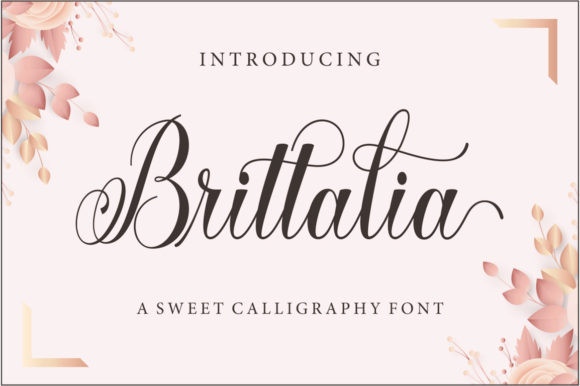
Brittalia Font
Brittalia Font is perfect for elegant wedding invitations, sophisticated branding projects, luxury fashion magazines, premium lifestyle campaigns, refined restaurant menus, upscale boutique signage, graceful stationery design, exclusive event materials, and high-end editorial layouts.
What makes Brittalia Font exciting is its captivating blend of British sophistication with Italian elegance that creates a uniquely refined and cosmopolitan character. The font features graceful letterforms with distinctive European flair that embodies the best of classic typography traditions while maintaining contemporary appeal. Its carefully crafted details and harmonious proportions make it perfect for brands that want to communicate international sophistication, cultural refinement, and timeless elegance while appealing to discerning audiences who appreciate the intersection of British heritage and Italian style.
Brittalia Font family includes various elegant weights such as Light, Regular, Medium, and Bold variations, often featuring stylish italics and European-inspired alternates. The family may include sophisticated ligatures, continental ornamental elements, and refined decorative features that enhance the font's cosmopolitan aesthetic, providing designers with comprehensive options for creating distinguished typographic compositions that reflect international luxury and cultural sophistication.
This cosmopolitan typeface has gained popularity among luxury brands and international organizations seeking refined European typography solutions. Brittalia Font Free Download provides an excellent opportunity to experience this sophisticated font before investment. The font's character set includes elegant symbols and refined glyphs that work perfectly for luxury lifestyle and international business applications. Whether you're designing for luxury travel brands, international fashion houses, or premium hospitality services, Brittalia Font delivers the European sophistication your project requires. Its versatile nature makes it suitable for various upscale applications including cultural institutions, luxury hotels, fine dining establishments, and premium lifestyle brands, ensuring your typography choices communicate worldly refinement and cultural awareness while creating memorable brand experiences that resonate with internationally-minded audiences who appreciate the timeless appeal of European elegance and the sophisticated lifestyle that defines contemporary luxury through its distinctively cultured and internationally appealing visual character.